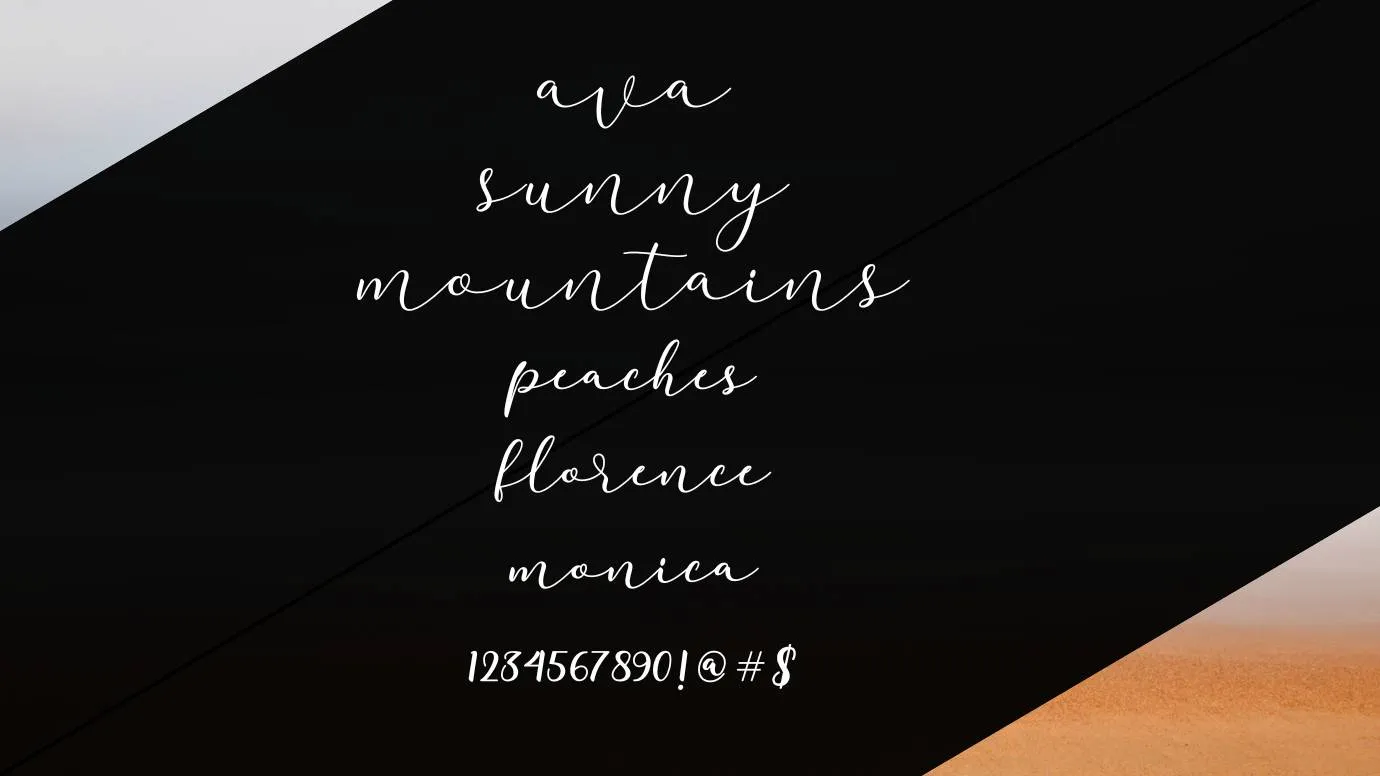
Darloune Font is a calligraphy typeface designed by WDfont. The typeface design is based on the old thin-style script typeface that dates back to 1896. The lowercase letters have a unique style that gives a thin pencil texture to your design. This makes the typeface very legible in small sizes.
The glyph of this font is available in various variations and designs. This Font is also used in Microsoft Word and Adobe Photoshop. This font has also a very pairing personality and can fit with other same categories typefaces likeĀ little mandy font.
This font is best used for headlines, advertising, and display work. This font is also commonly used in Advertising, Branding, banner, product packaging, and Headlines. It’s also good for its pairing ability, that it can make a very well paired with rotterdam font.
Creator of Darloune Font
This typeface was designed by a very famous studio named WDfont. When designing this font, the design team focuses on the style and readability of the font.
View of Darloune Font
| Name | Darloune Font |
| Style | Calligraphy |
| Designer | WDfont |
Is the Darloune font outdated?
The Darloune typeface is not outdated. It is largely useable in many software applications and programs.
Is Darloune Font Good for Titles?
This Font is an excellent choice for titles and headlines thanks to its stylish design. You can also use this font in many other methods.